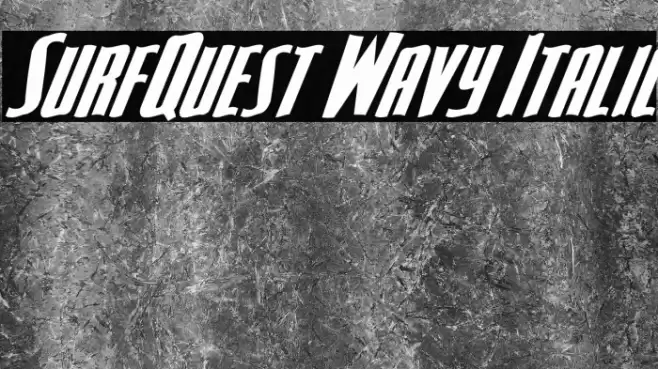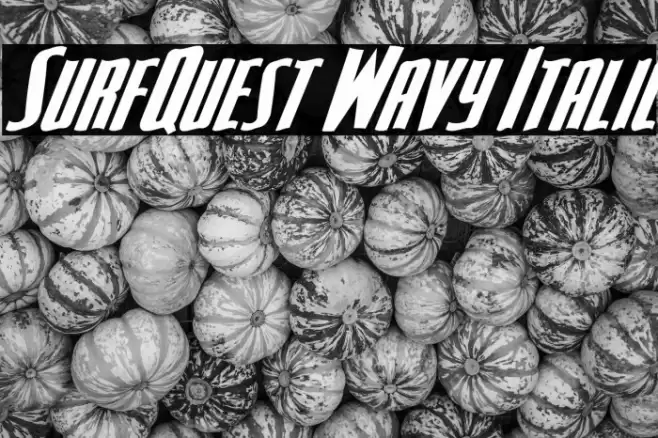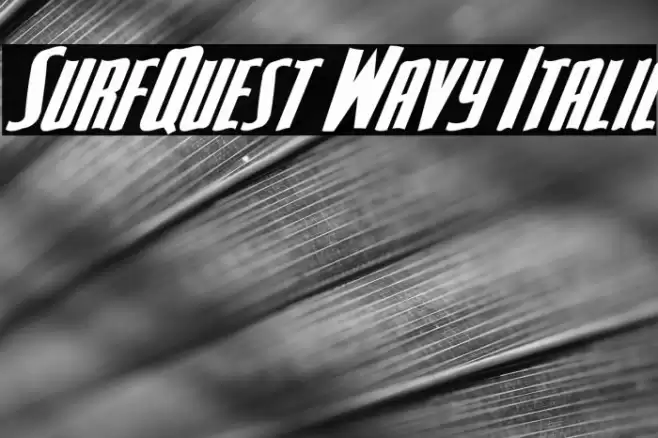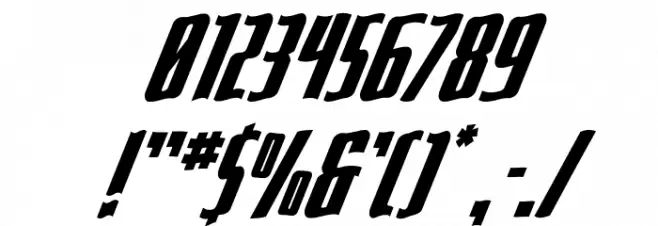
SurfQuest Wavy Italic Font
SurfQuest Wavy Italic Description
This font features a bold and dynamic design with a distinct wavy and italicized style. The characters are slanted, giving a sense of movement and energy. The strokes are thick and consistent, creating a strong visual impact. The uppercase and lowercase letters maintain a cohesive look, while the numbers and special characters are designed to match the overall aesthetic. This font is ideal for projects that require a bold and eye-catching typeface.
A bold, wavy, and italicized font with a dynamic and energetic style from Regular fonts.
- Proposed Projects: Ideal for surf-themed branding, sports event posters, dynamic logos, and eye-catching headlines.